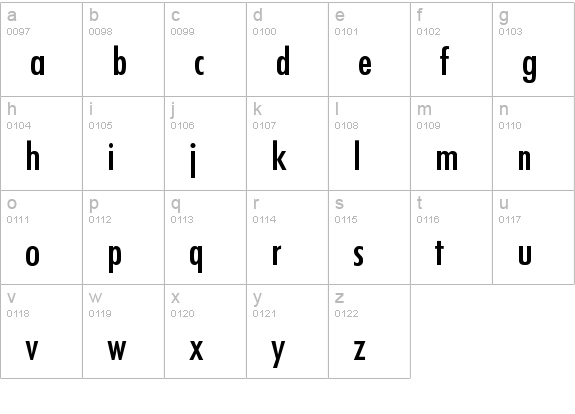
Futura Condensed BQ Medium is a balanced, medium-weight, condensed-width variant in the Futura typeface family \xE2\x80\x94 well suited to sub-headlines, navigation, and balanced editorial work.
Futura Condensed BQ Medium is a sleek and modern font that exudes sophistication and style. With its condensed form and medium weight, this typeface is perfect for creating eye-catching headlines, signage, and branding materials. The clean lines and elegant curves of Futura Condensed BQ Medium make it a versatile choice for a wide range of design projects. And the best part? Futura Condensed BQ Medium is available for free download at FontsMarket.com. Now you can elevate your designs with this stunning font without any cost. Don't miss out on this opportunity to enhance your projects with the timeless appeal of Futura Condensed BQ Medium.